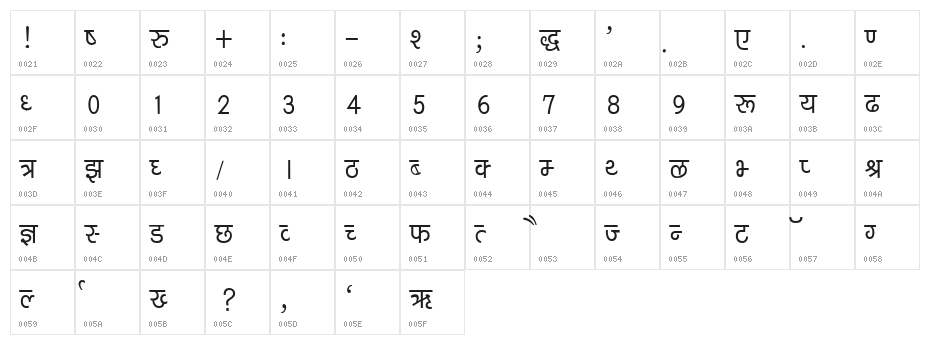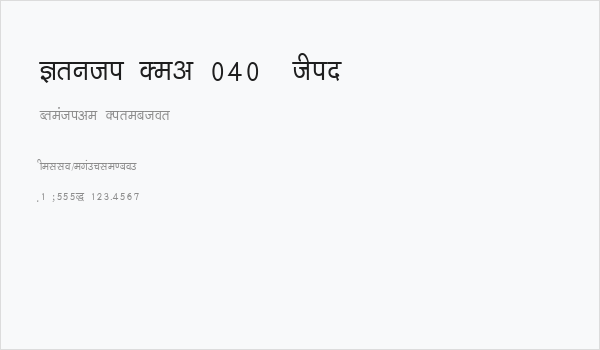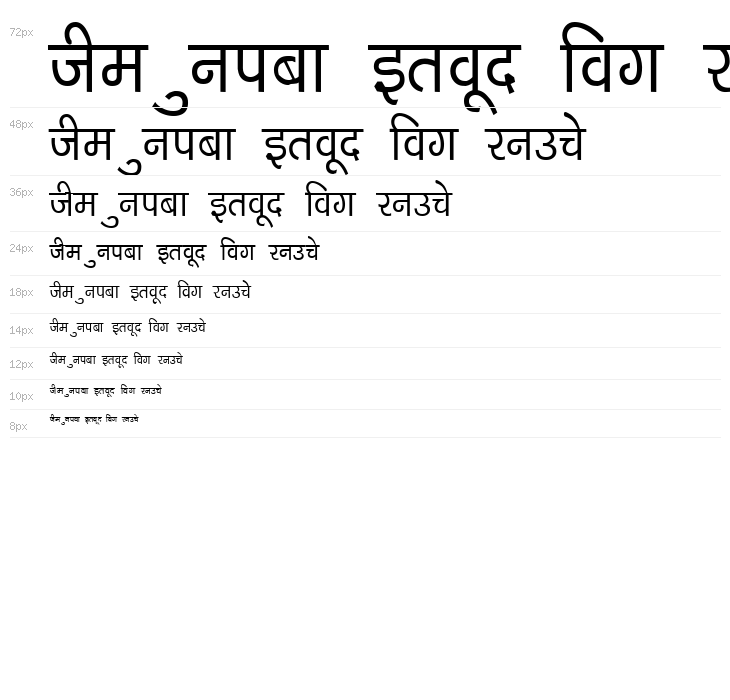
Kruti Dev 040 Thin Font
Kruti Dev 040 Thin Description
This font is a Devanagari script with a clean and structured appearance. The characters are well-defined with a consistent stroke width, giving it a balanced and uniform look. The numerals and special characters are distinct and easily readable, complementing the overall design. The font maintains a traditional feel while ensuring clarity and legibility, making it suitable for various applications where readability is crucial.
| Use Case | Body text, Educational materials, Official documents |
| Proposed Projects | Ideal for educational materials, official documents, and digital content requiring Devanagari script. |